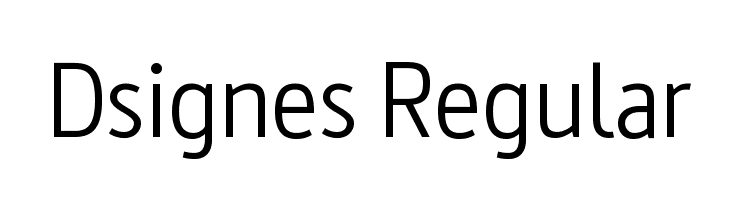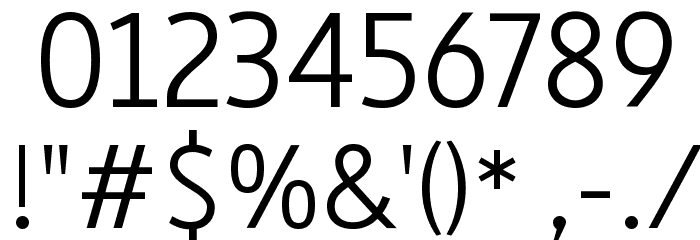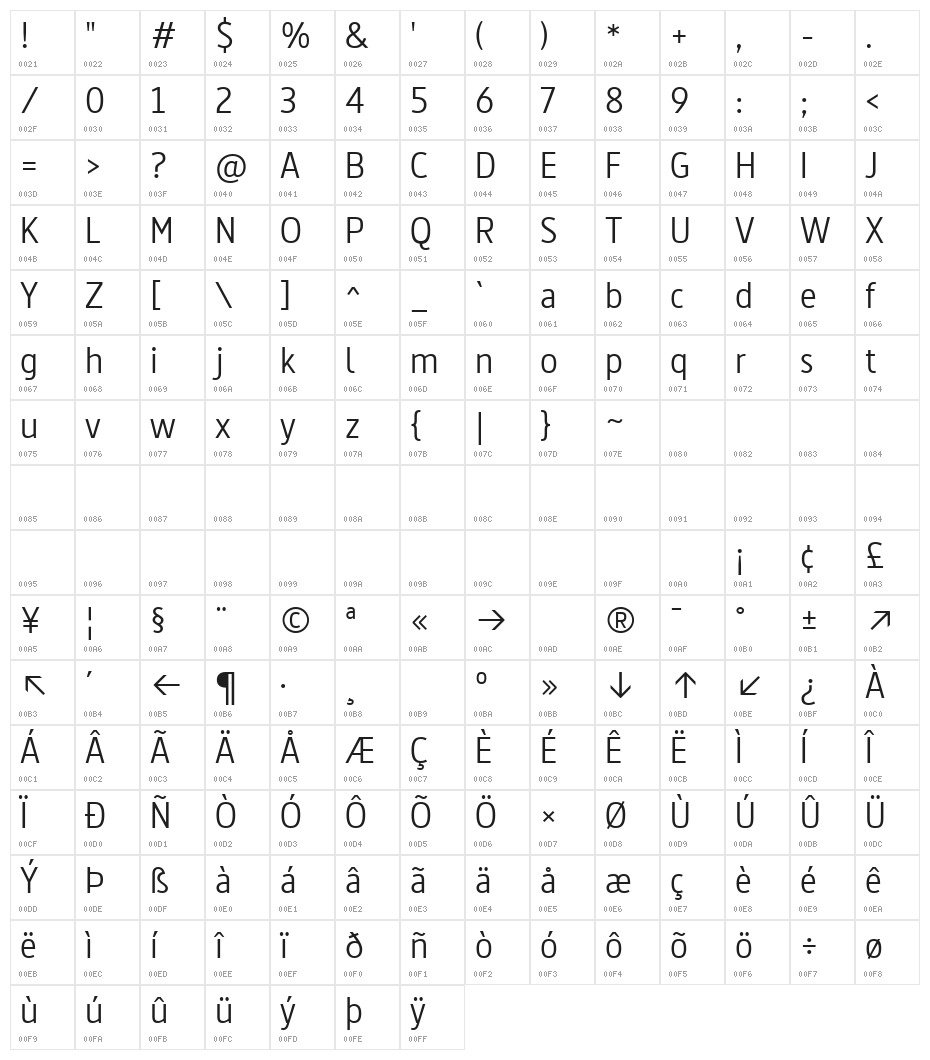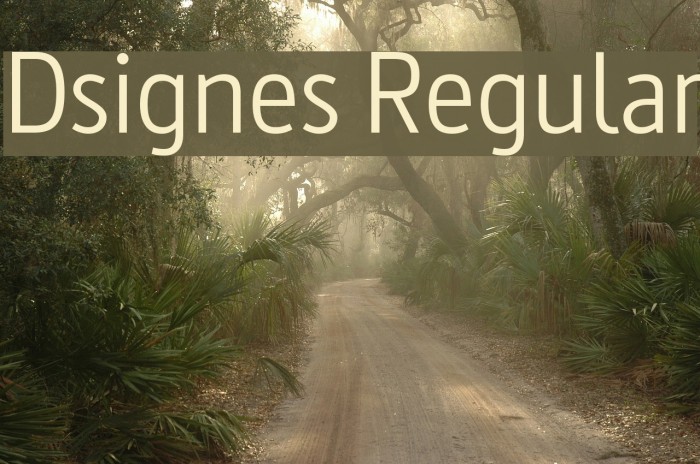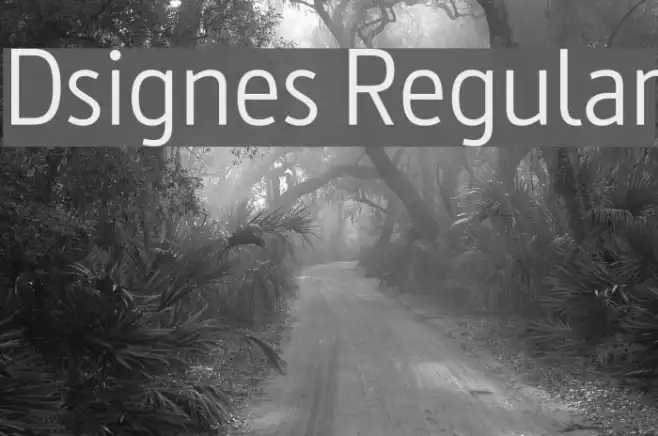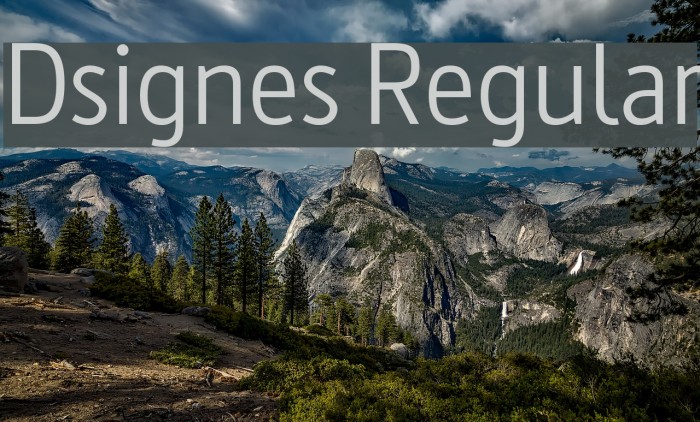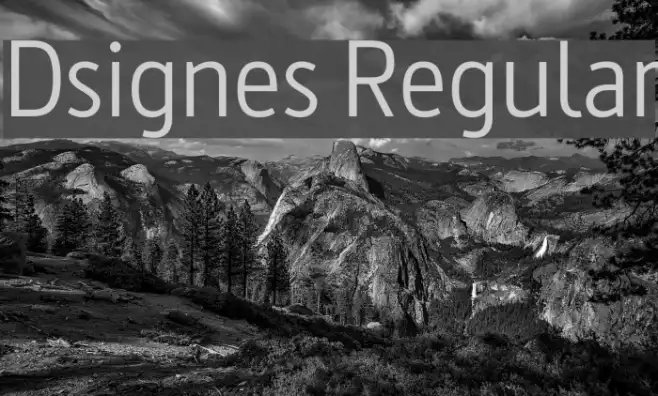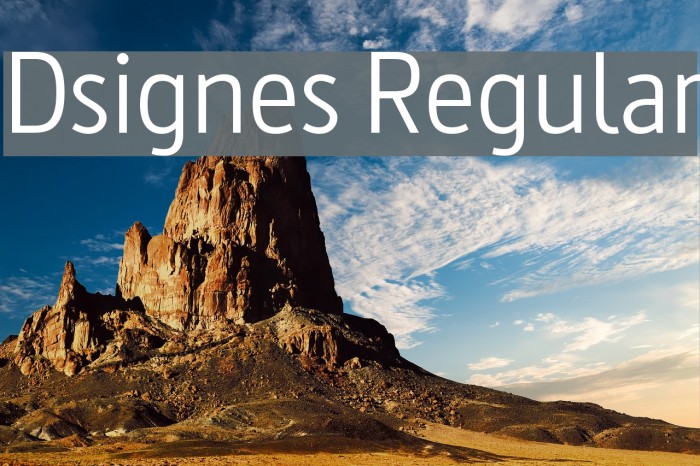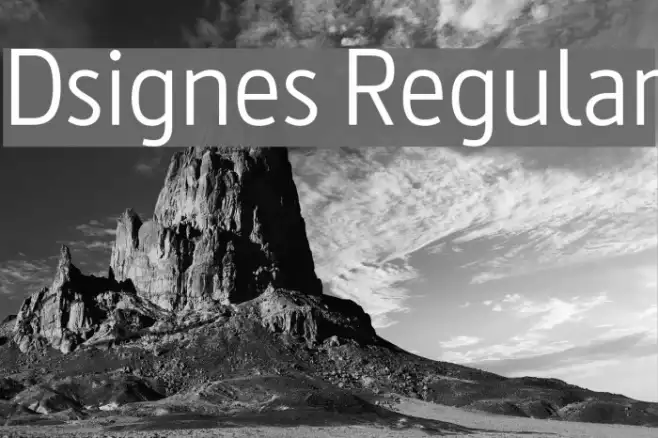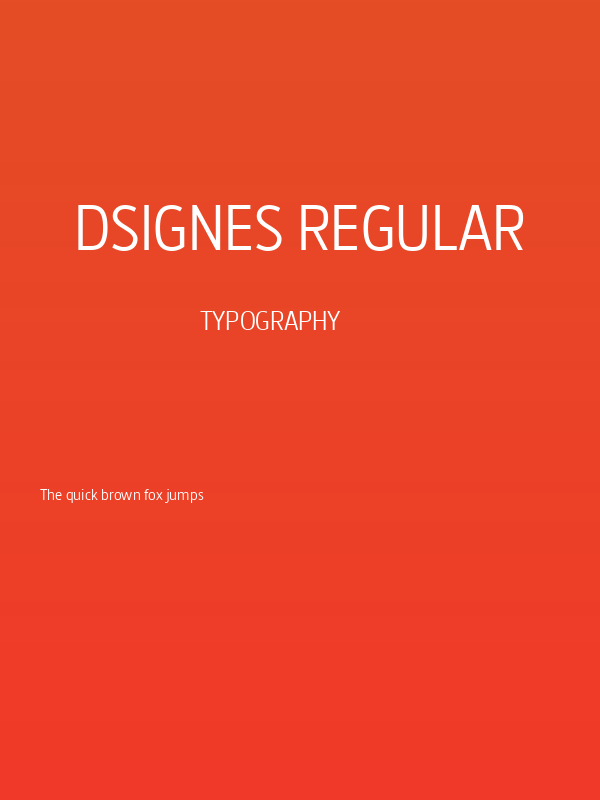
Dsignes Regular Font
Dsignes Regular Description
This font features a clean and modern sans-serif style with a geometric structure. The characters are well-balanced with a consistent stroke width, providing a harmonious and professional appearance. The uppercase letters are bold and assertive, while the lowercase letters maintain a friendly and approachable look. The numerals are clear and easy to read, making them suitable for various applications. Special characters are included, enhancing its versatility. Overall, this font is ideal for projects requiring clarity and modernity.